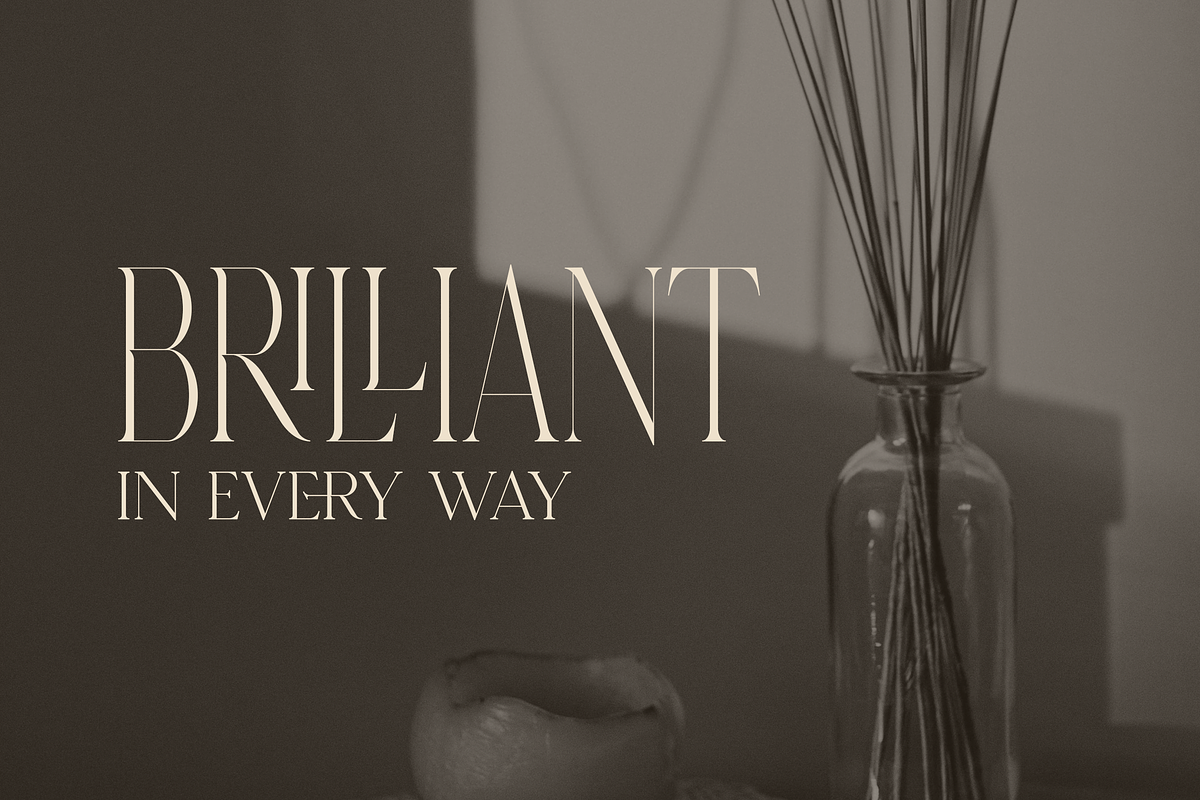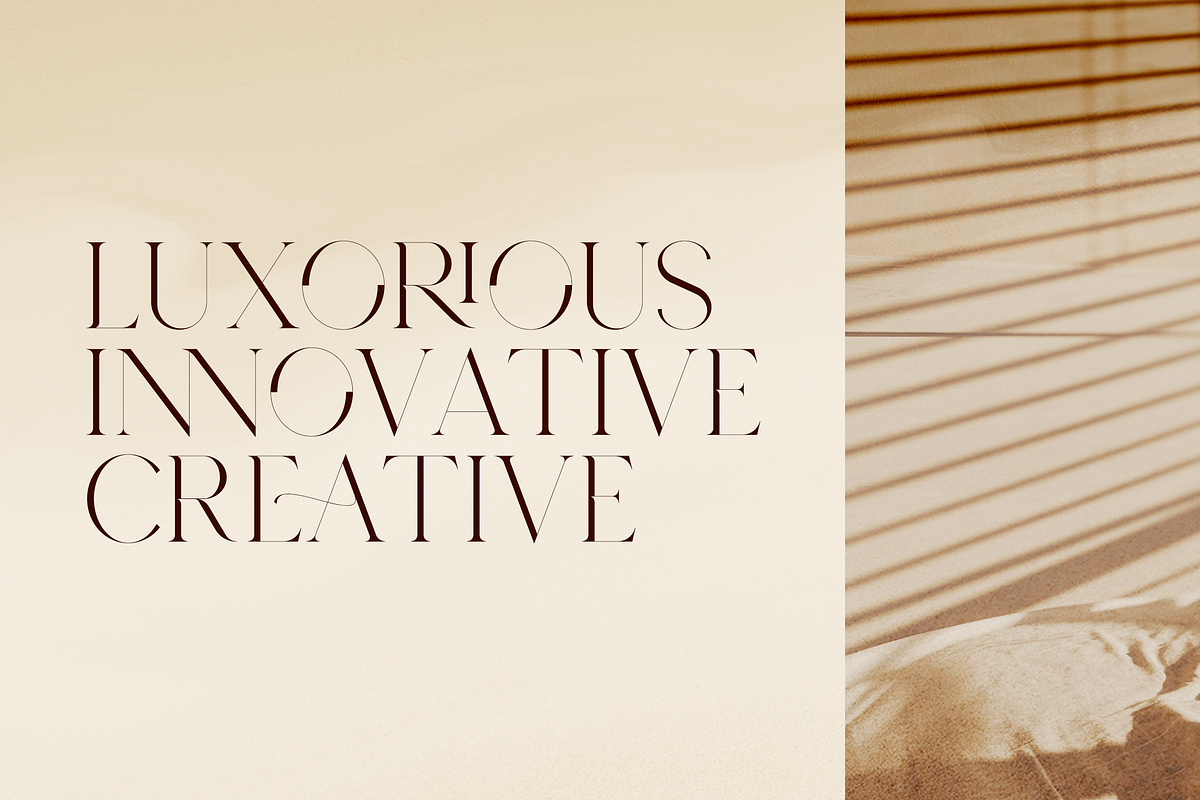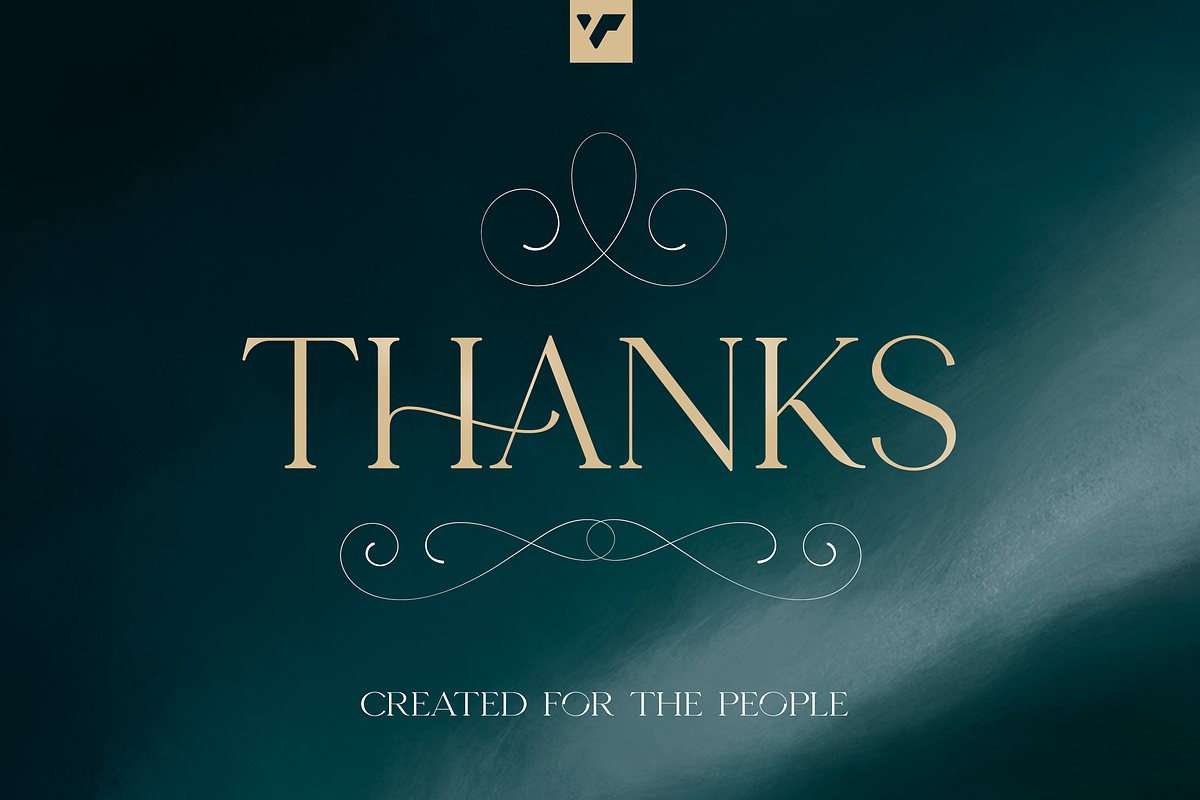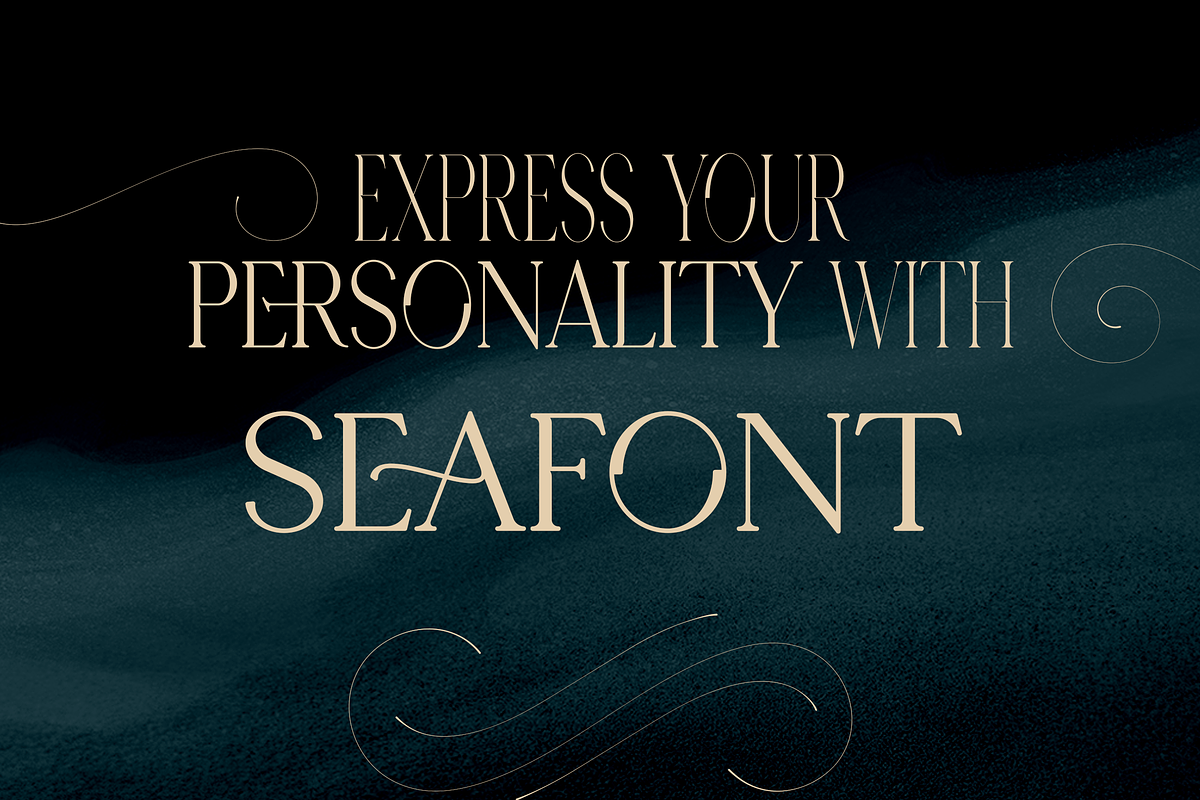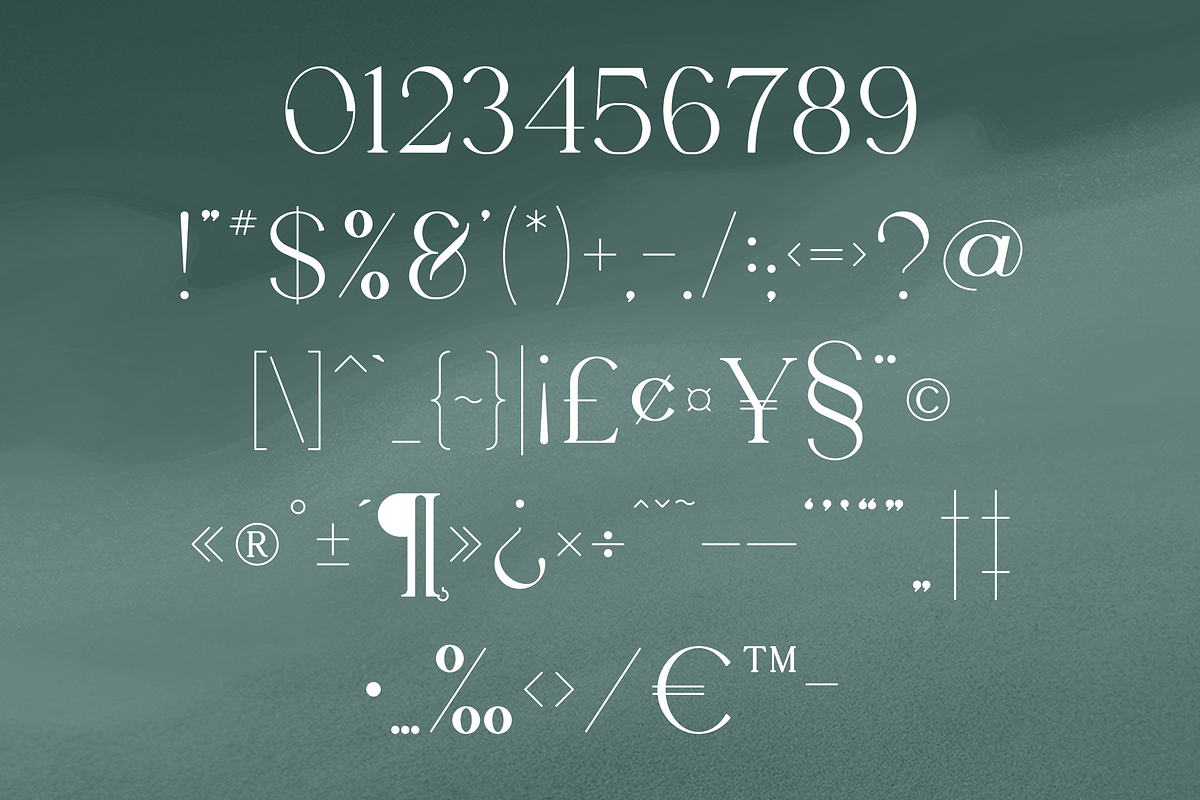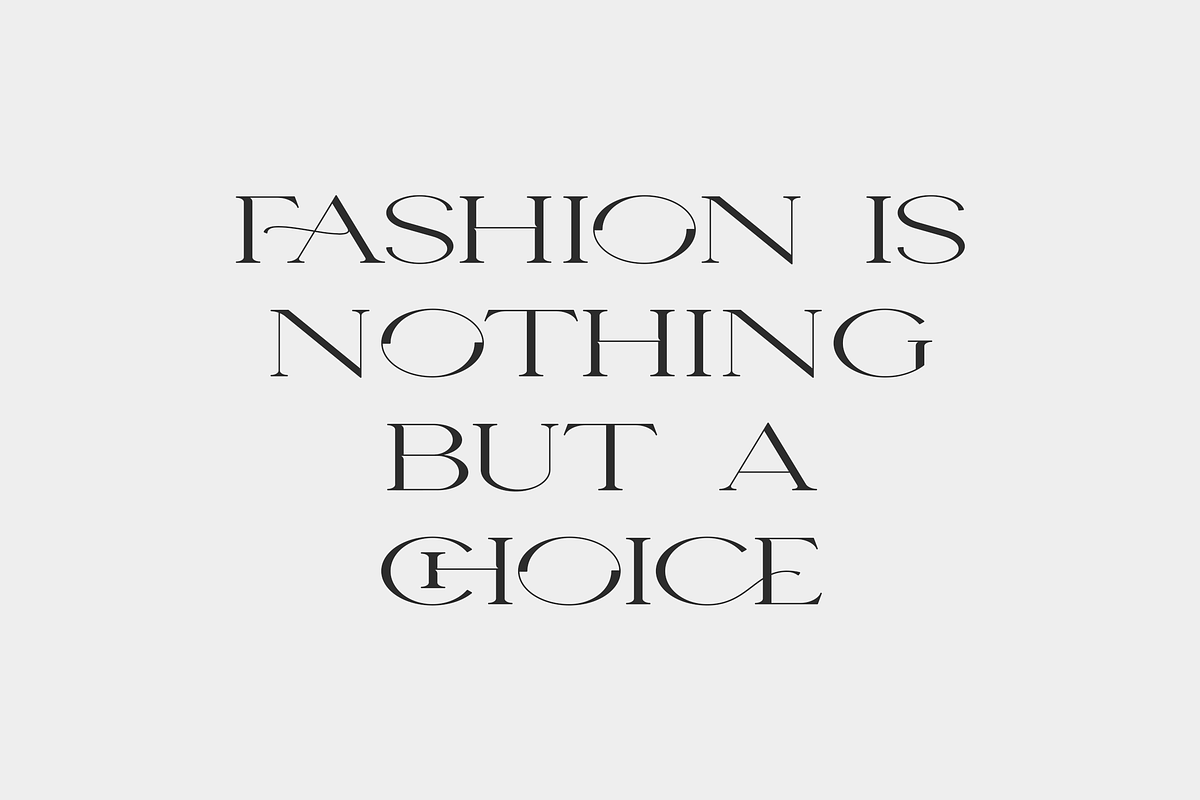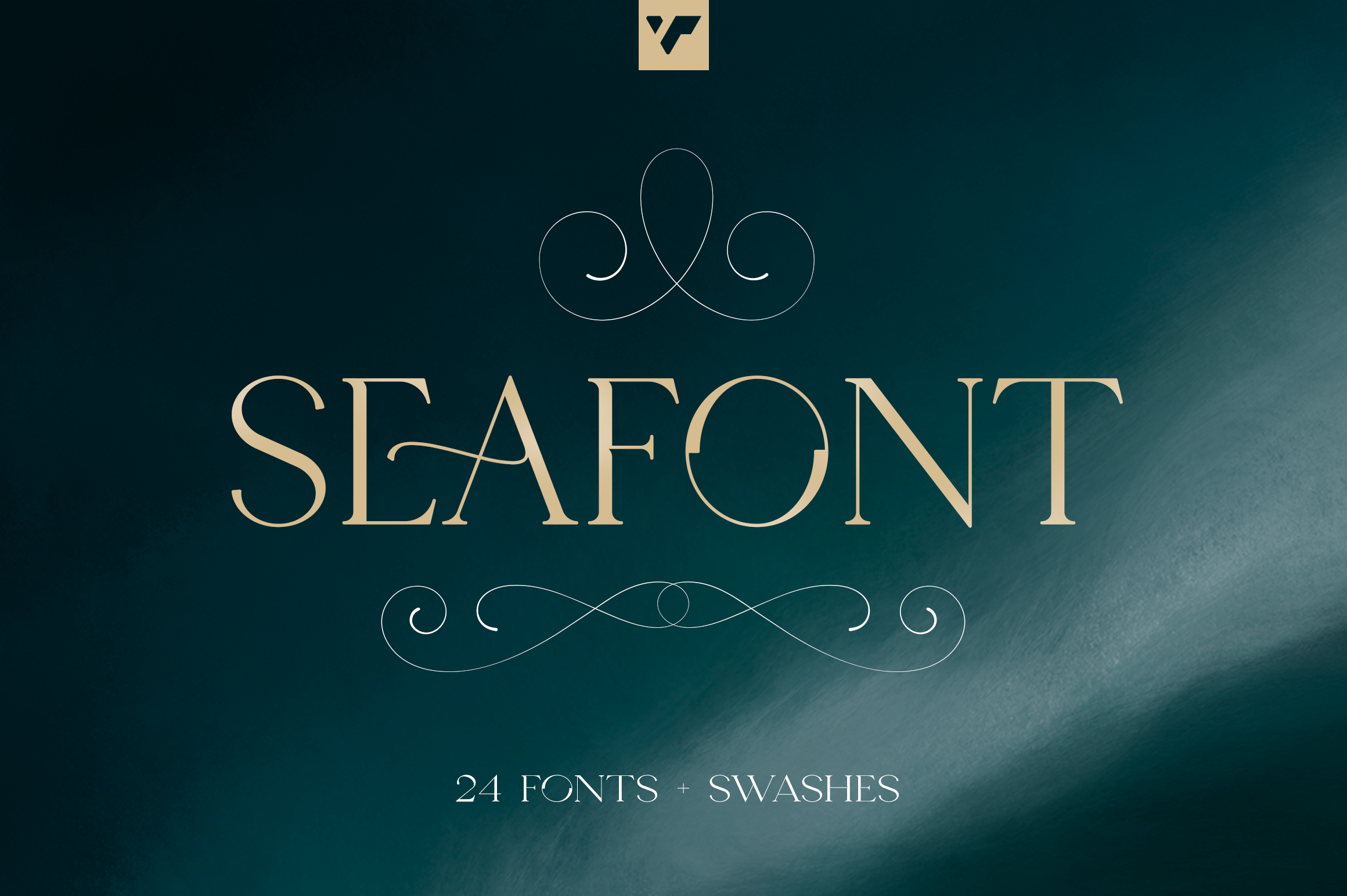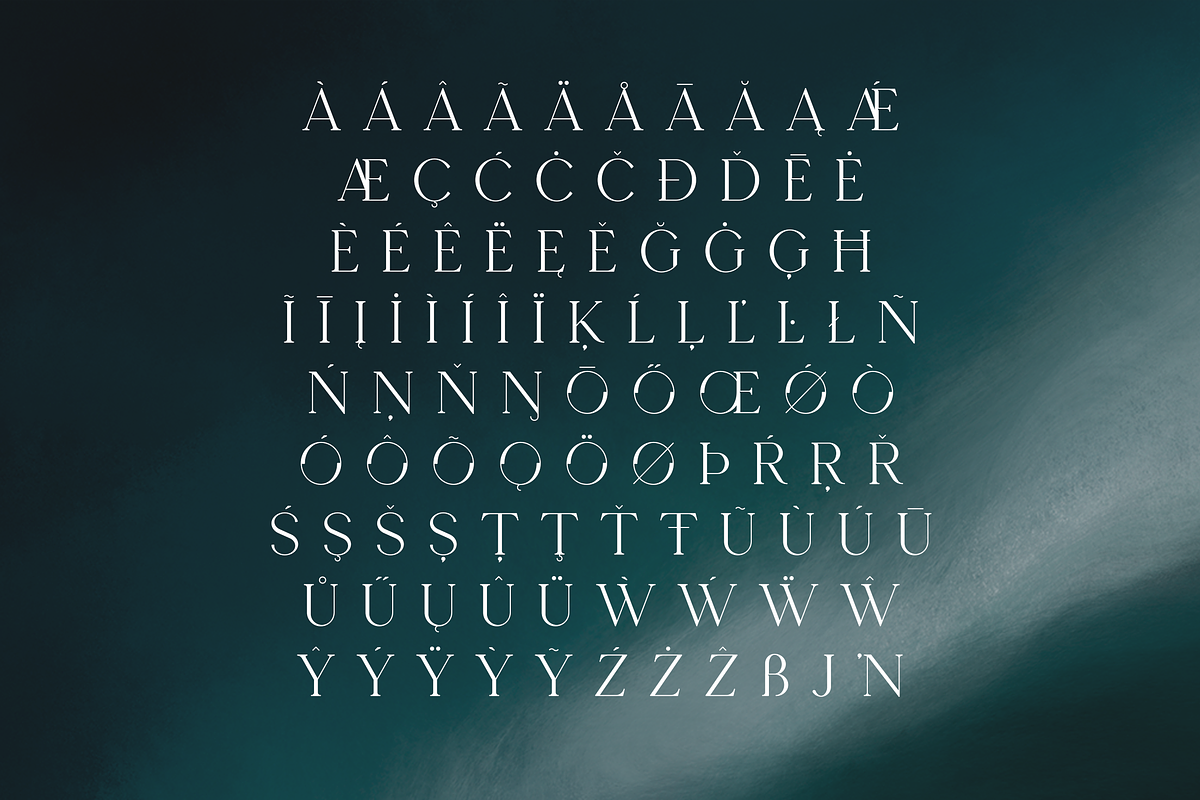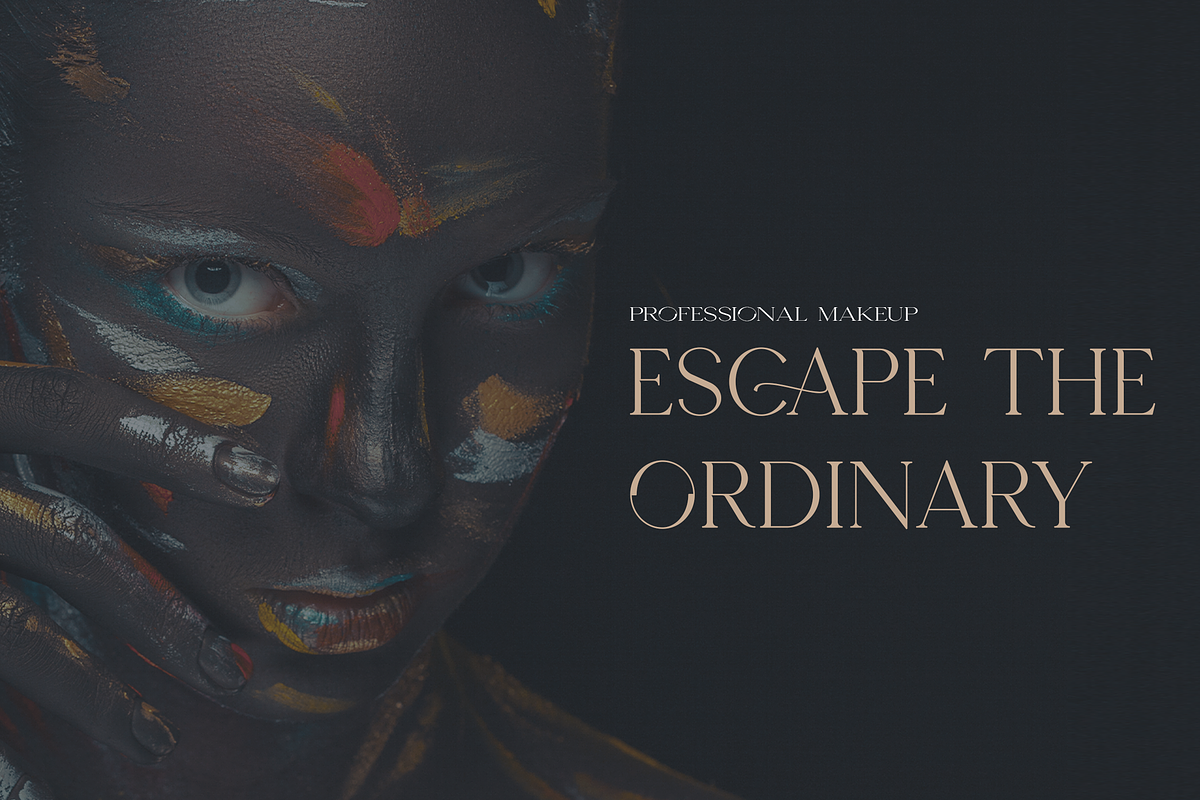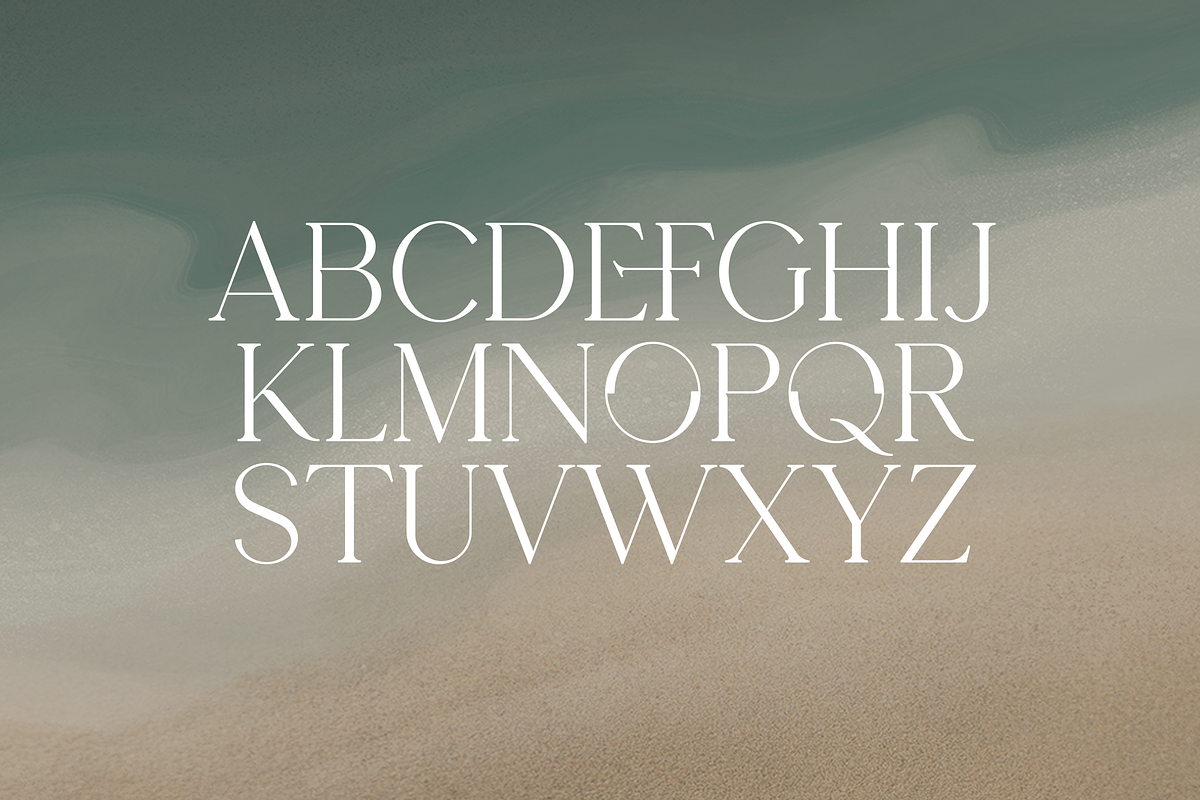
Seafont - serif typeface, 25 styles
Introducing Seafont - serif typeface , 24 fonts + 26 swashes
Say "hello" to Seafont, an exquisite serif typeface that's as timelessly stylish as it is versatile. Whether you narrow down your options with 24 font styles or go wild with 26 swashes and multi-language support plus ligature glyphs – the result will be one of a kind!
Language Support : Afrikaans, Albanian, Asu, Basque, Bemba, Bena, Breton, Chiga, Colognian, Cornish, Czech, Danish, Dutch, Embu, English, Estonian, Faroese, Filipino, Finnish, French, Friulian, Galician, Ganda, German, Gusi,i Hungarian, Indonesian, Irish, Italian, Jola-Fonyi, Kabuverdianu, Kalenjin, Kamba, Kikuyu, Kinyarwanda, Latvian, Lithuanian, Lower Sorbian, Luo, Luxembourgish, Luyia, Machame, Makhuwa-Meetto, Makonde, Malagasy, Maltese, Manx, Meru, Morisyen, North Ndebele, Norwegian, Bokmål, Norwegian, Nynorsk, Nyankole, Oromo, Polish, Portuguese, Quechua, Romanian, Romansh, Rombo, Rundi, Rwa, Samburu, Sango, Sangu, Scottish, Gaelic, Sena, Shambala, Shona, Slovak, Soga, Somali, Spanish, Swahili, Swedish, Swiss, German, Taita, Teso, Turkish, Upper, Sorbian, Uzbek (Latin), Volapük, Vunjo, Walser, Welsh, Western Frisian, Zulu
- Uppercase, lowercase, numeral, punctuation & Symbol
- ligature glyphs
- Narrower - 4 weights
- Narrow - 4 weights
- Regular - 4 weights
- Wide - 4 weights
- Wider - 4 weights
- Widest - 4 weights
- Multilingual support - 87 languages